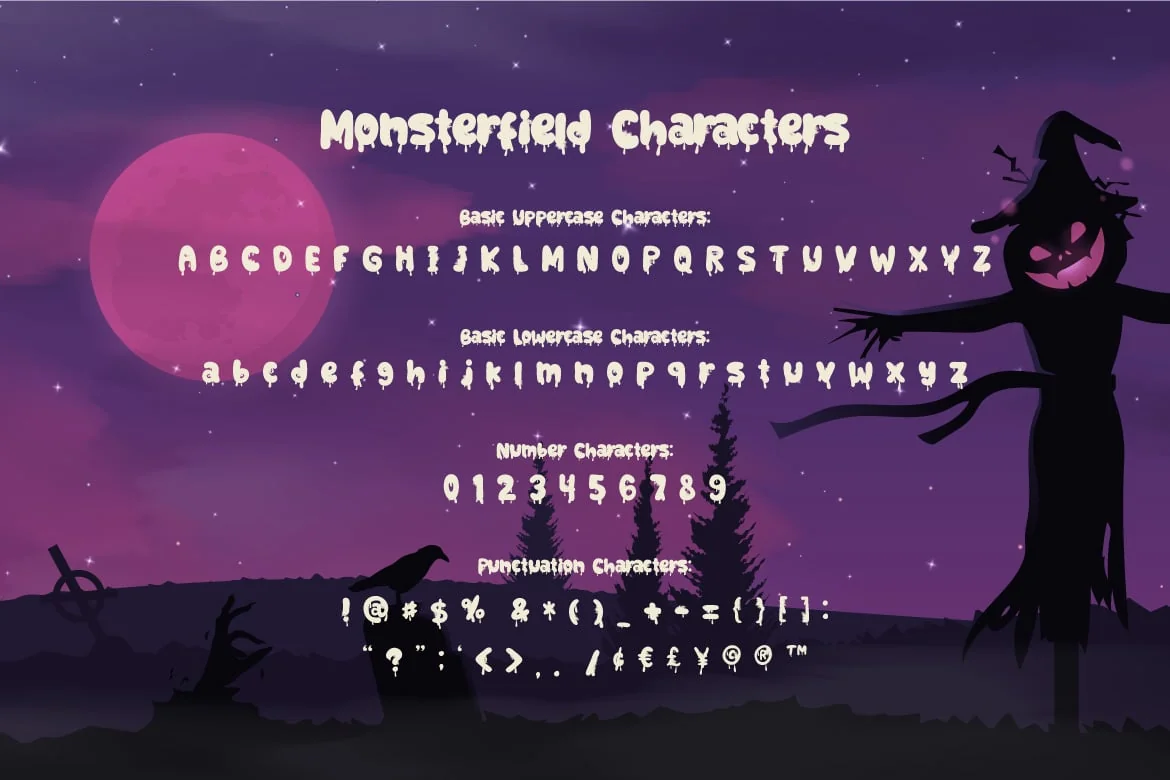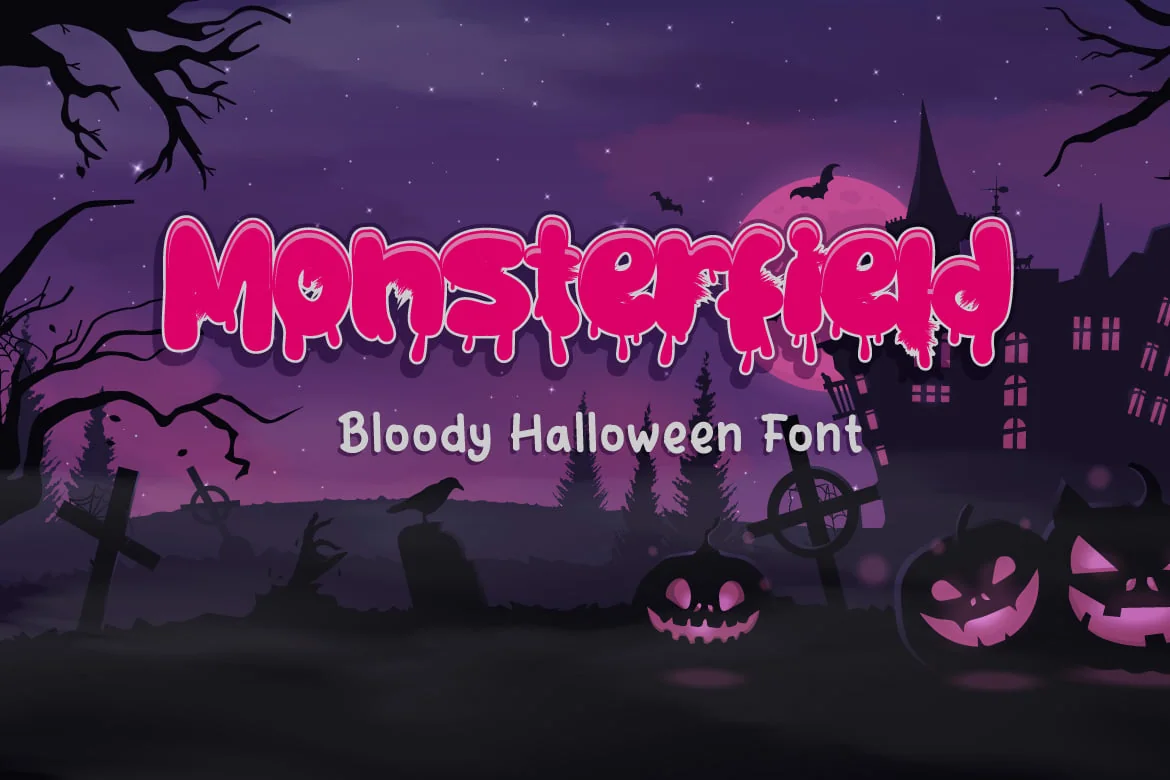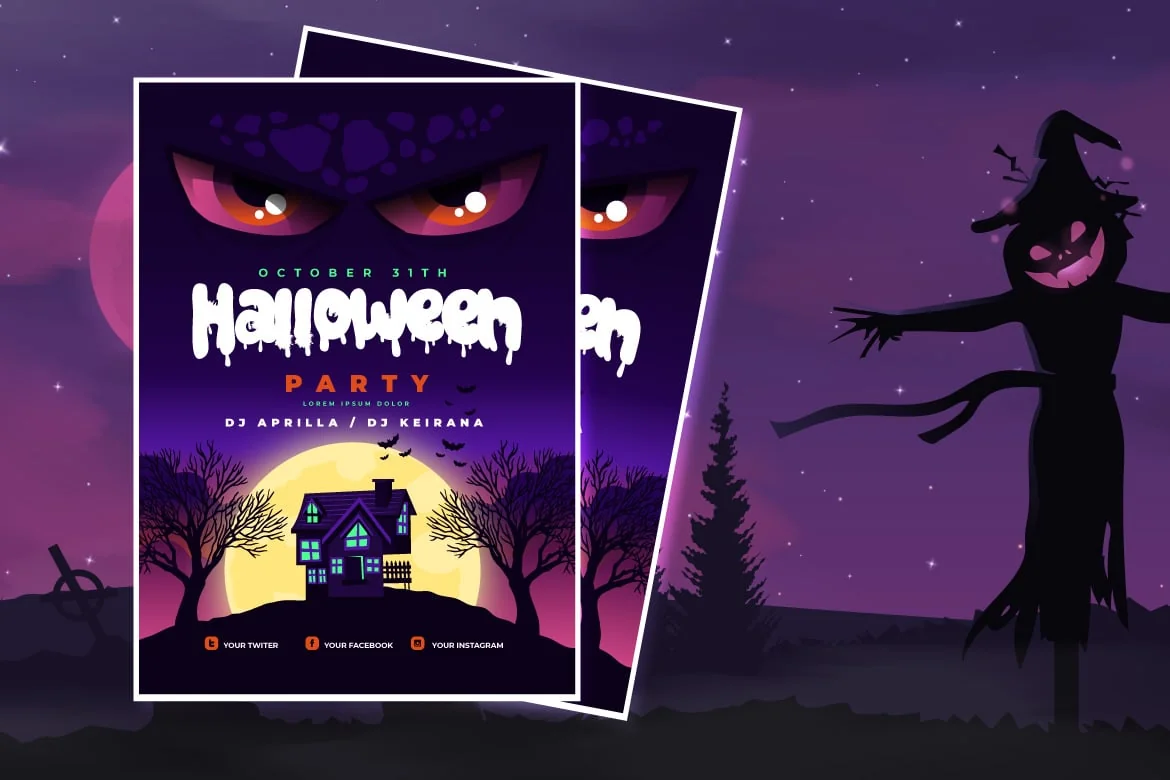
Monsterfield – Bloody Scary Halloween Font
Let me scaring you using MONSTERFIELD, a bloody Halloween font. This font is suitable for comic, flyer, poster, banner, movie title, book cover, card, merchandise, etc. This font has lowercase and uppercase style. Try this font and feel the scariness inside the word!